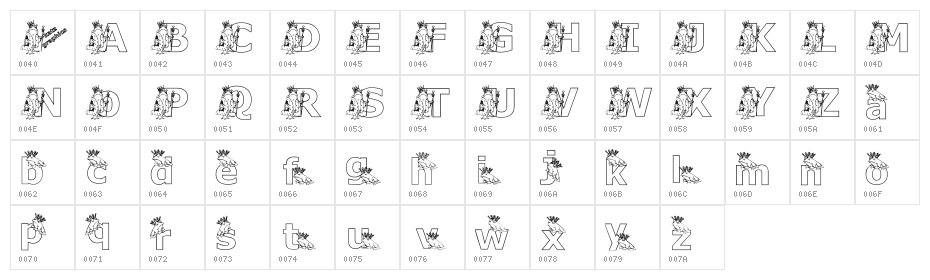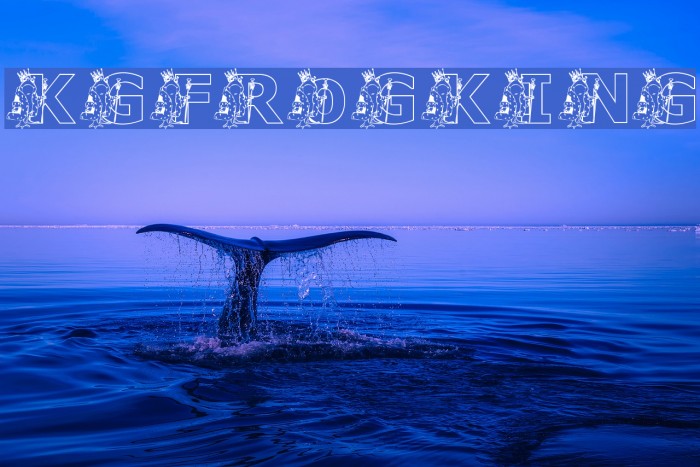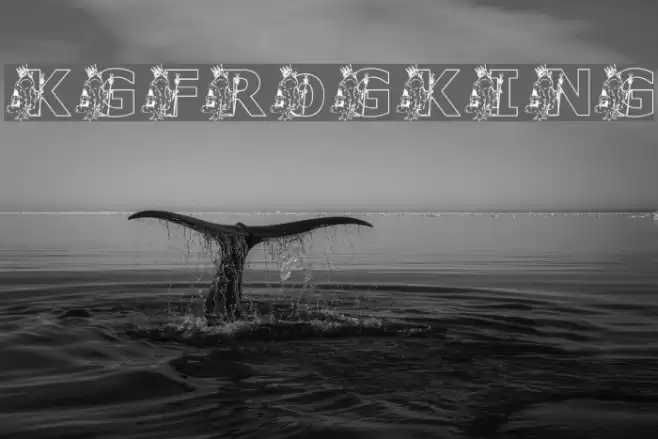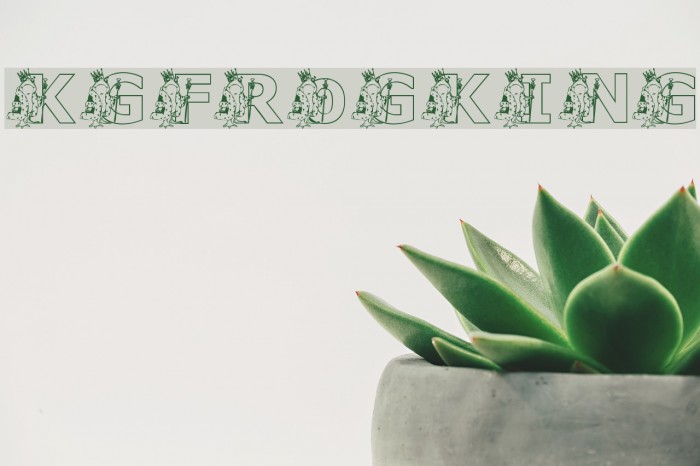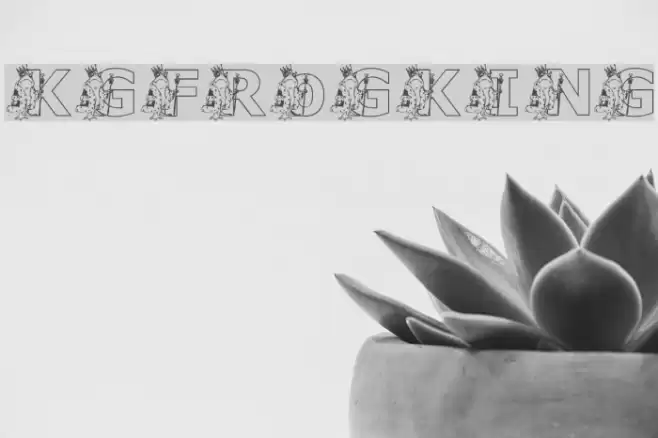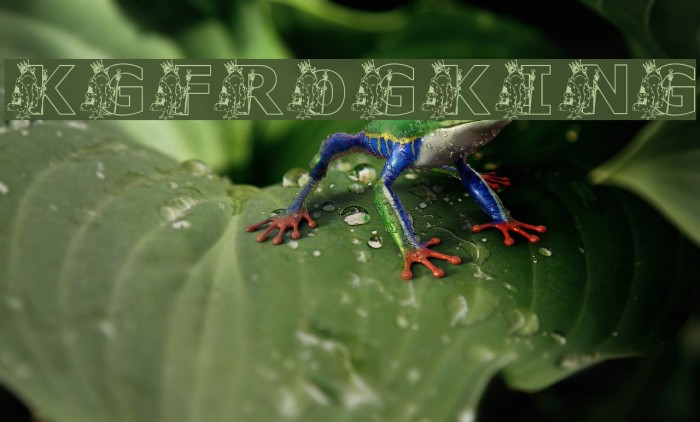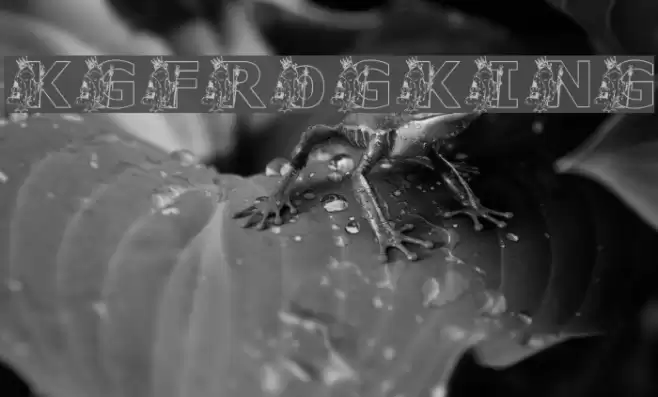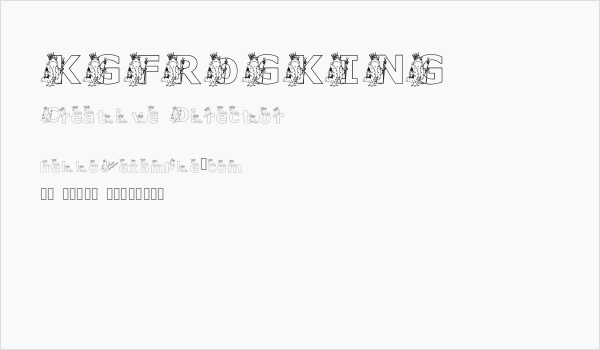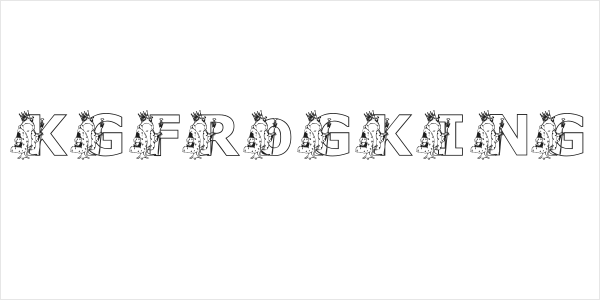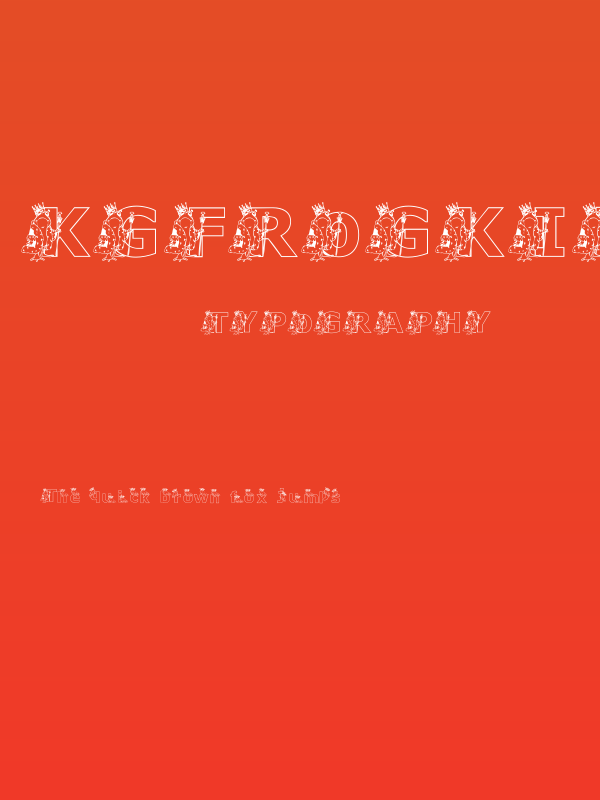
KGFROGKING Font
KGFROGKING Description
This playful and whimsical font features a unique design where each letter is accompanied by a detailed frog illustration wearing a crown. The characters are outlined, giving them a bold and striking appearance. The combination of the regal frog imagery with the clean, outlined letters creates a fun and engaging visual experience. This font is perfect for projects that require a touch of humor and creativity, such as children's books, playful branding, or themed events. The intricate details of the frog illustrations add a layer of complexity and charm, making each letter a small work of art.
| Overall Style | Whimsical, Playful |
| Use Case | Headlines, Logos, Decorative text |
| Proposed Projects | Ideal for children's books, playful branding, themed events, and creative designs. |